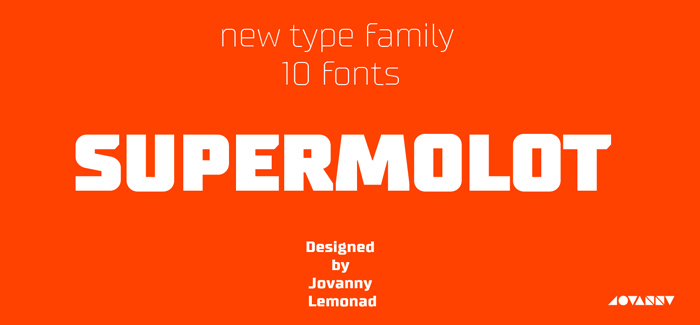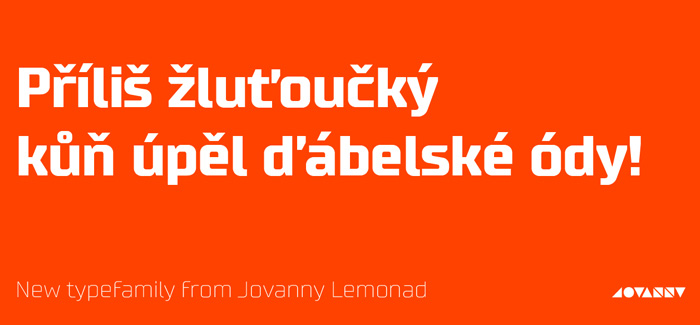
Supermolot font
Supermolot font is a modern square grotesk with the elements of the Soviet style. Supermolot is a logical continuation of the legendary Molot font that was developed in 2008.
Supermolot fontfamily has 10 fonts and support for multiple languages. It is a simple and affordable tool for any designer.
Designers: Ivan Gladkikh, Roman Ershov
Publisher: Jovanny Lemonad